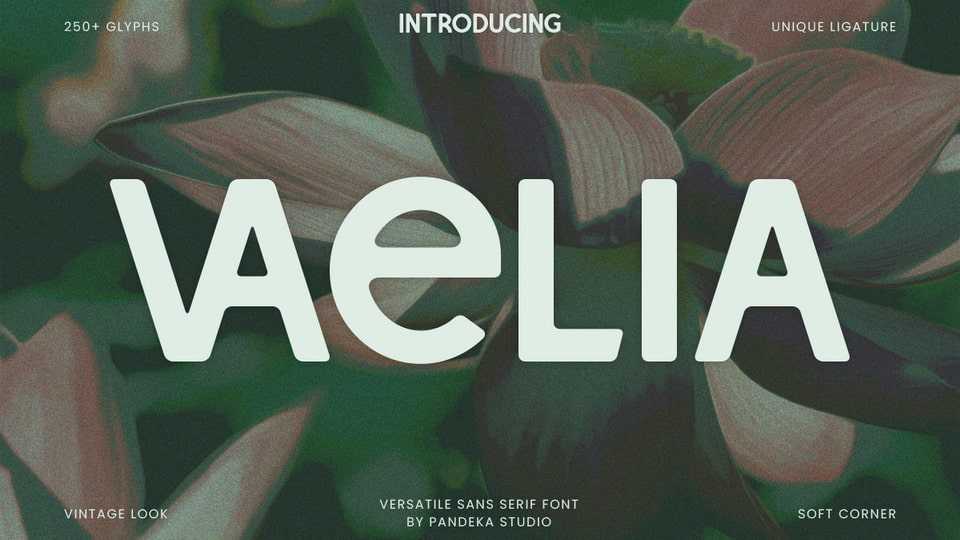
Download Vaelia font, a bold, nature-inspired display typeface with a modern twist, designed for creatives who want to infuse elegance, organic charm, and high visual impact.